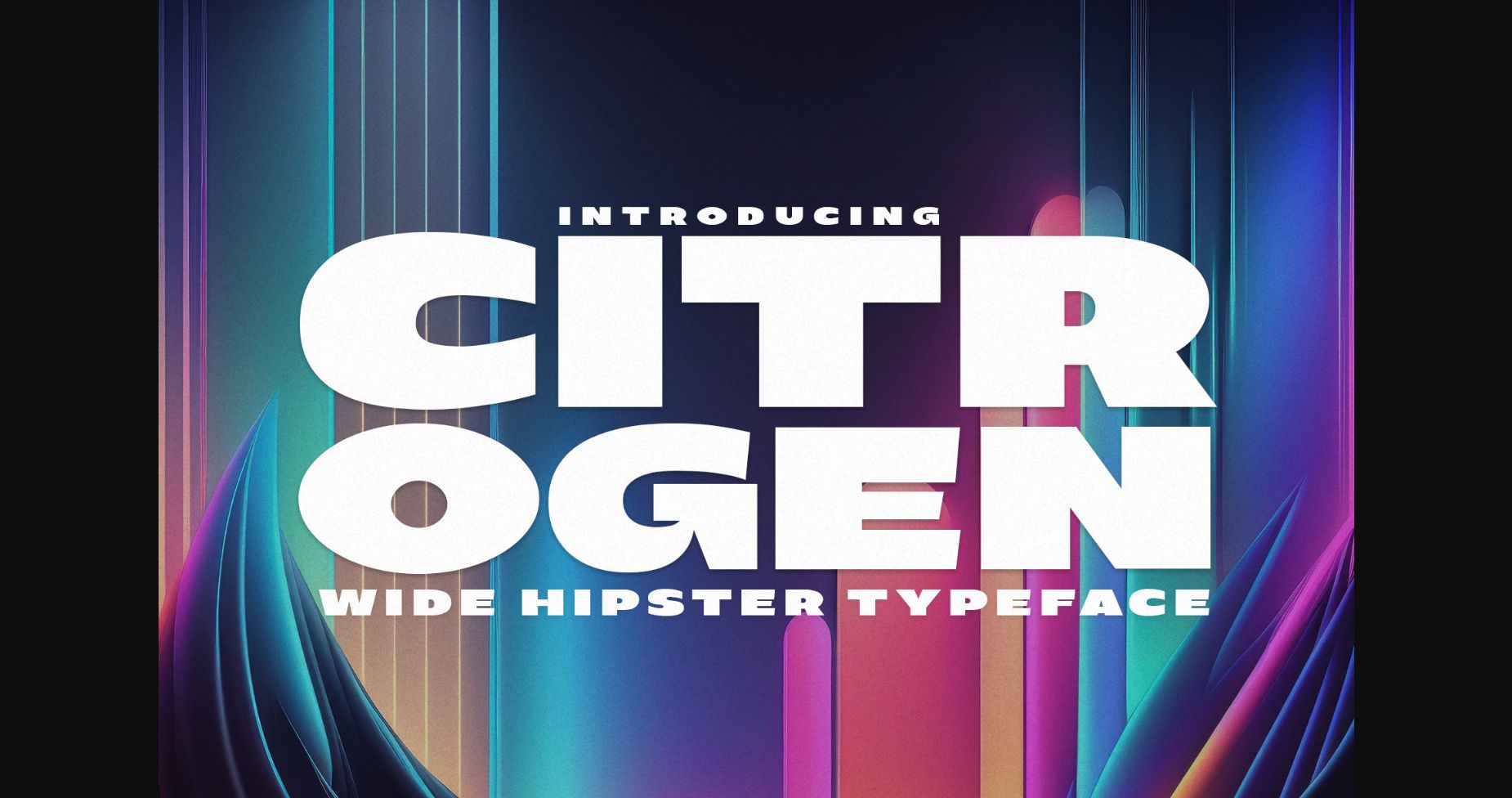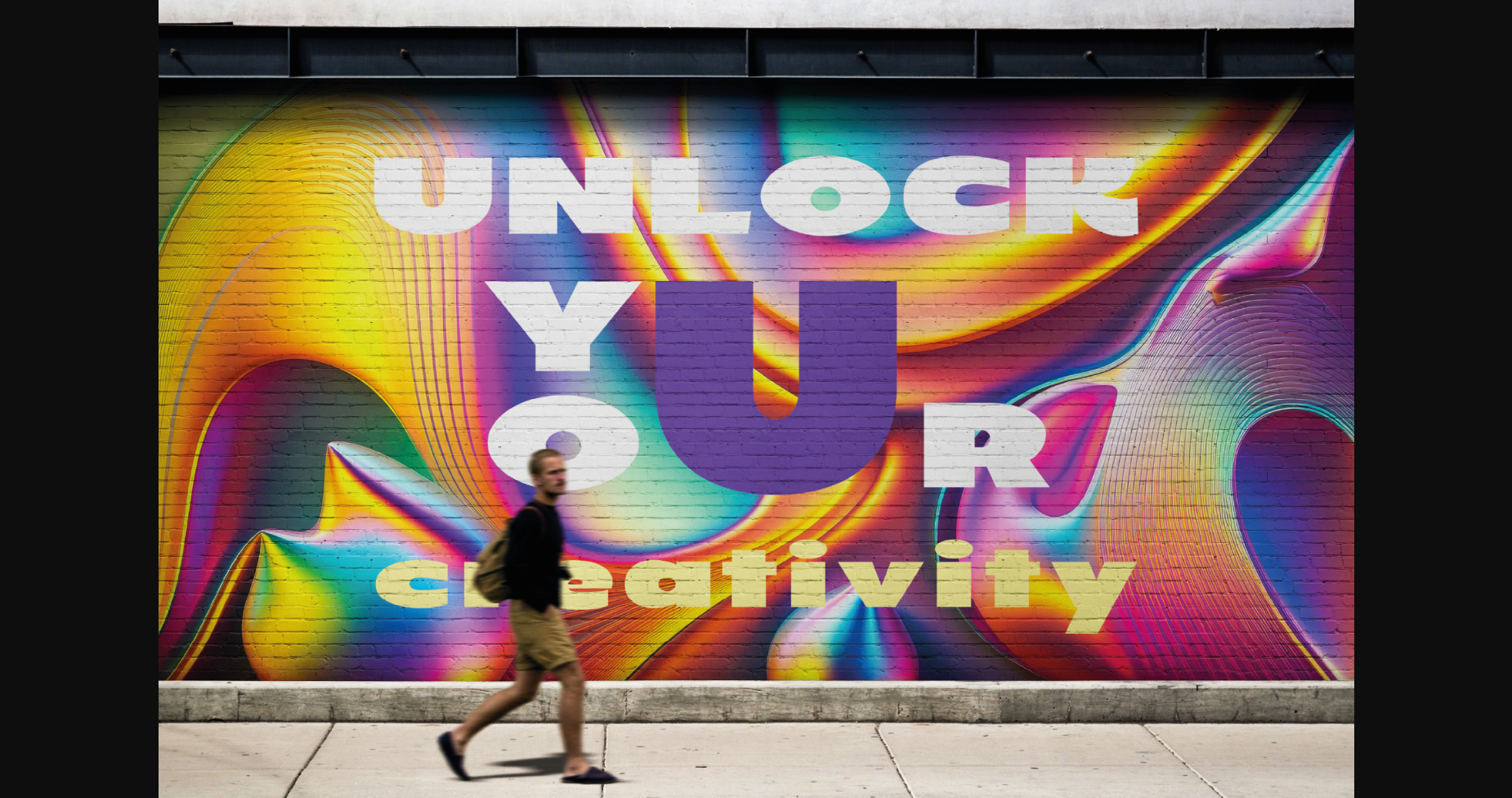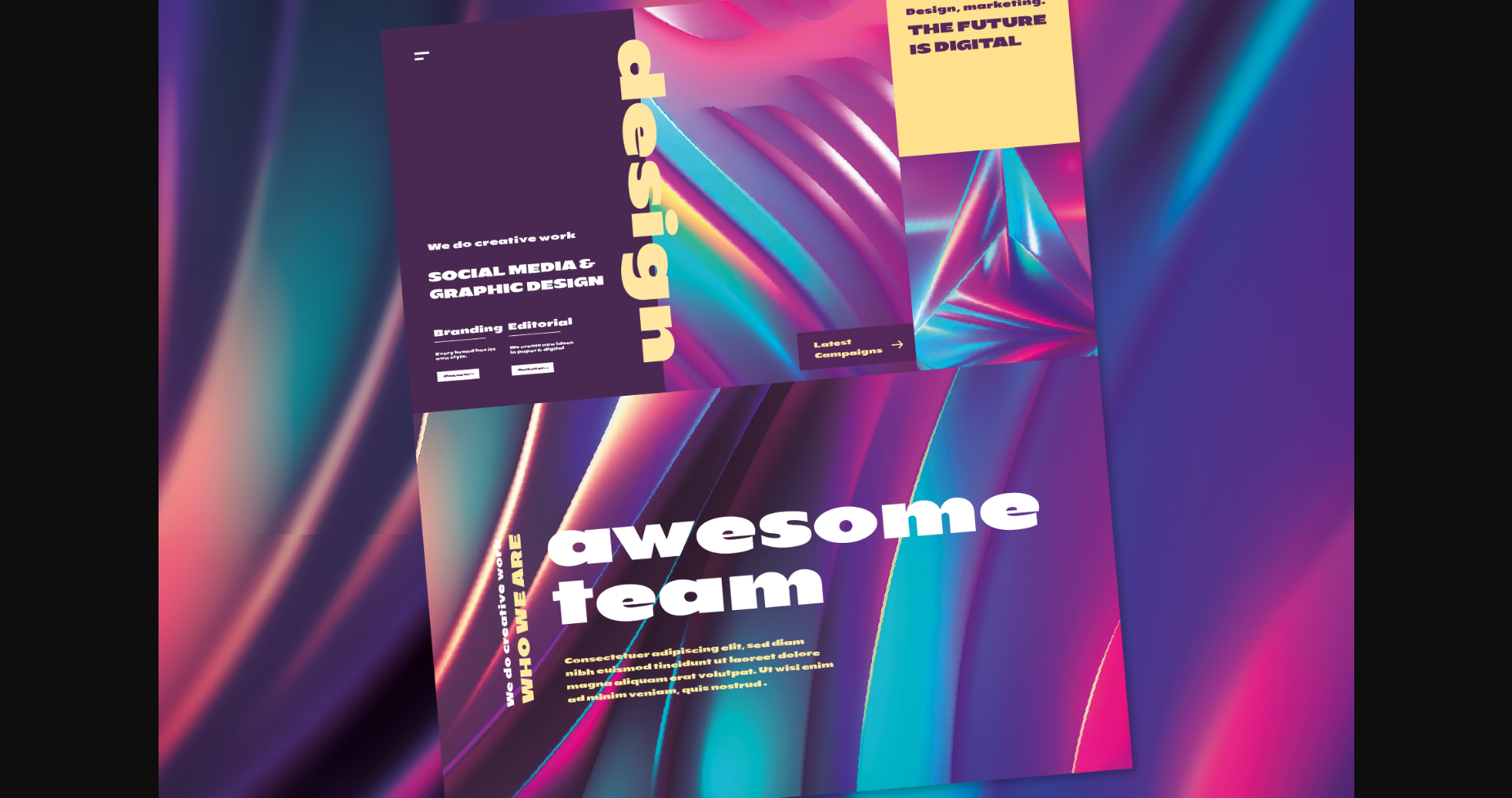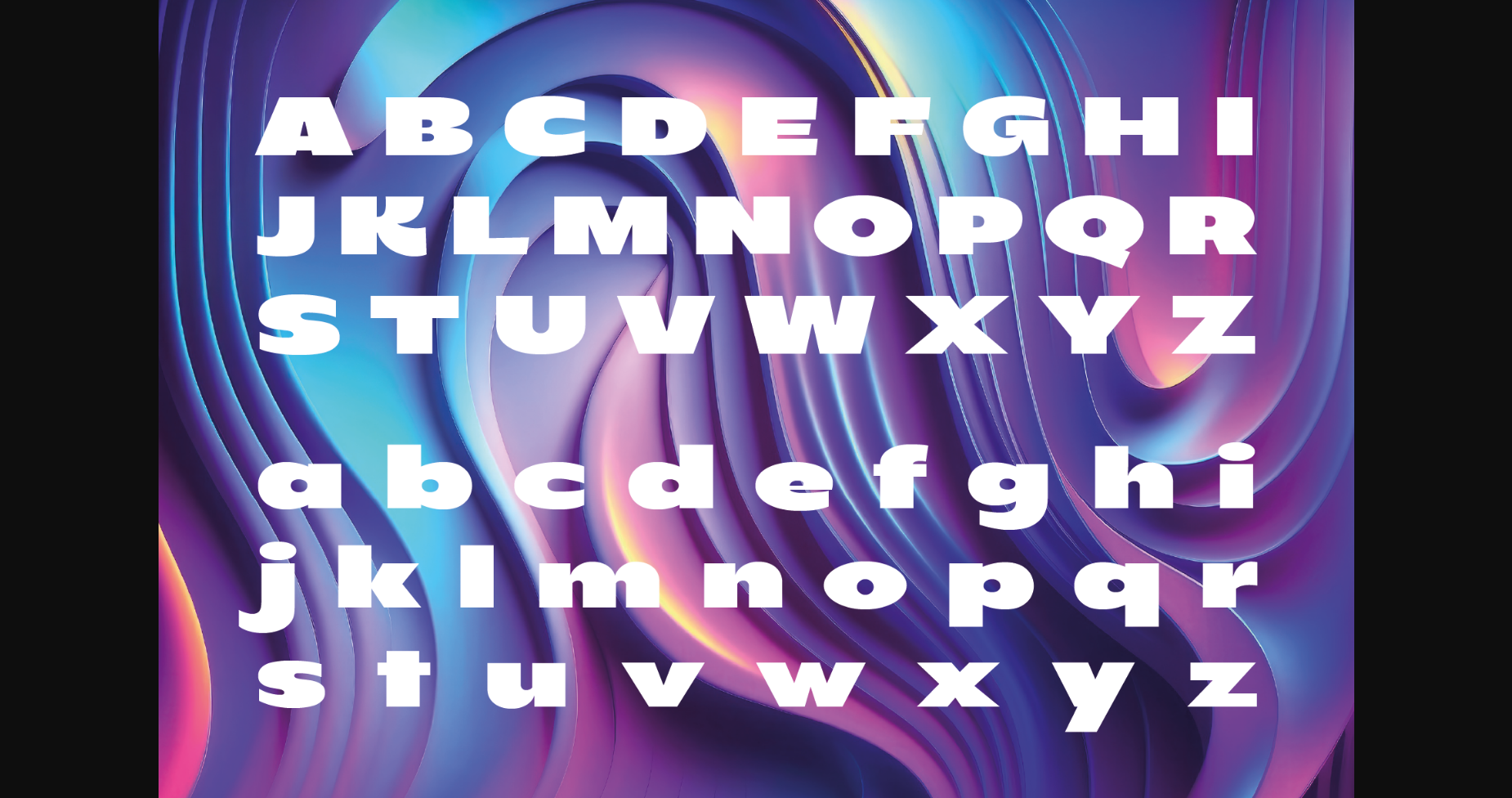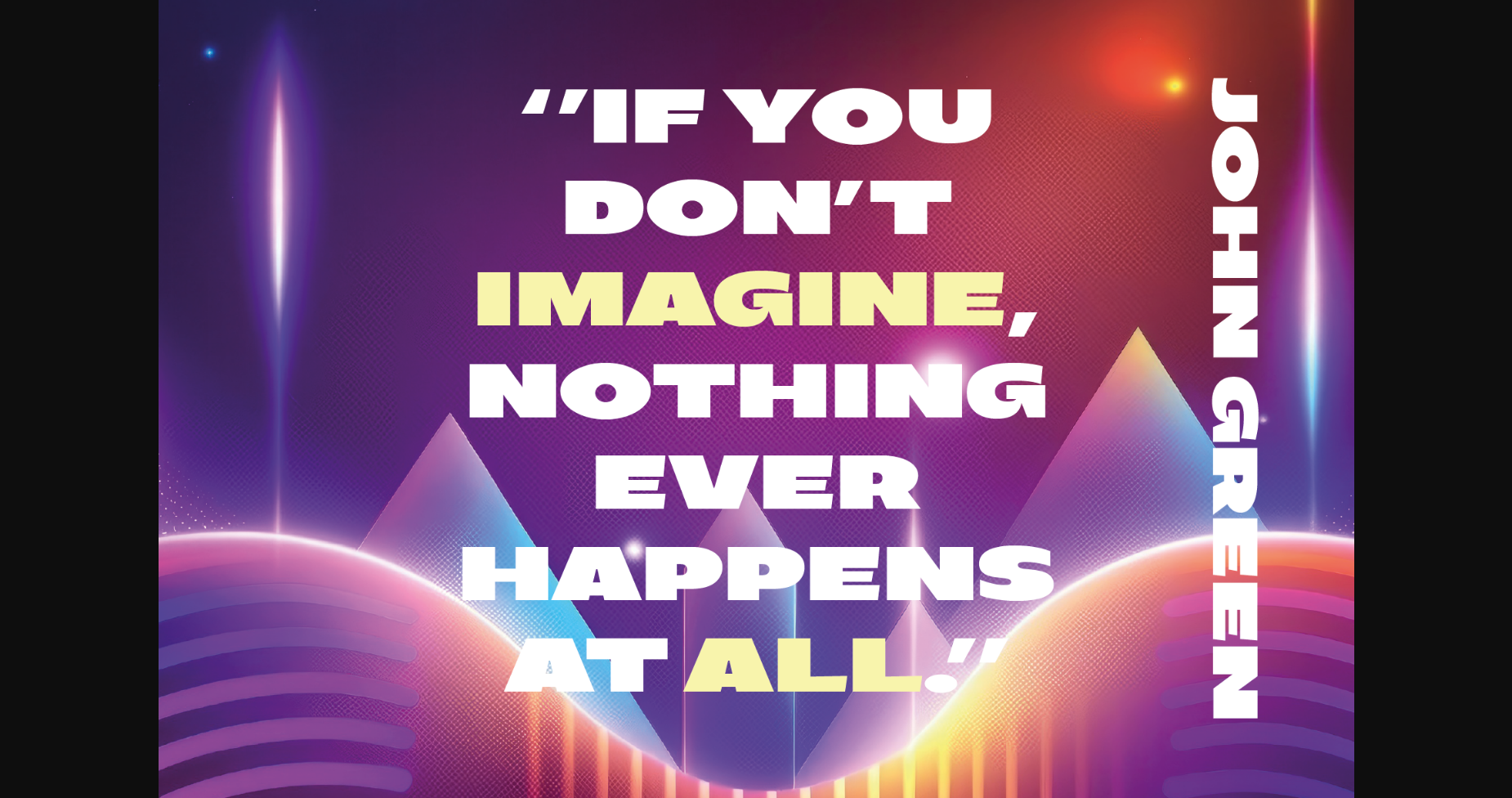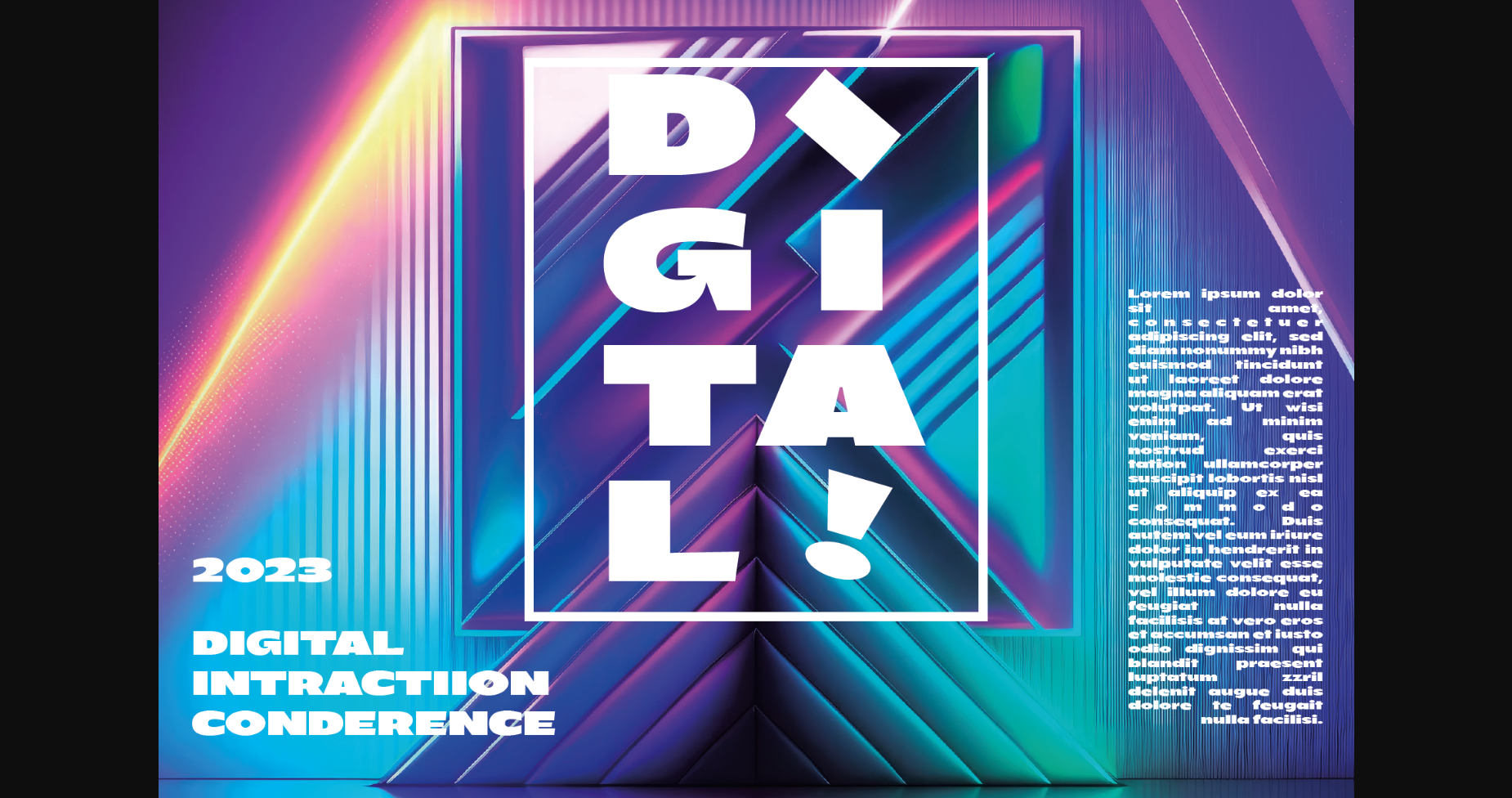
About Citrogen Font
Citrogen is a powerful and versatile font that commands attention with its bold and clean lines. Its modern design makes it an excellent choice for a variety of projects, including posters, packaging, and branding.
With its strong and bold appearance, Citrogen is perfect for creating a powerful statement or making a bold impression. This font is sure to make your message stand out and grab the attention of your audience. Its simple yet effective design makes it an excellent choice for those looking to make a modern and sophisticated statement.